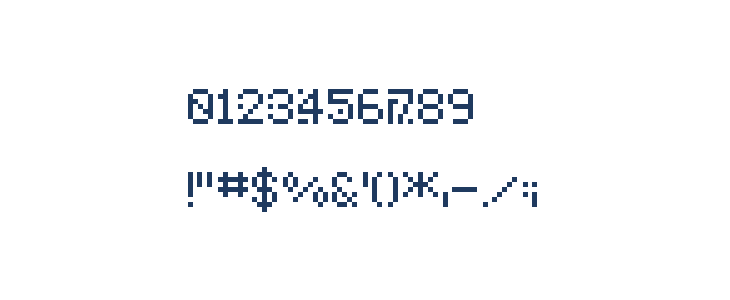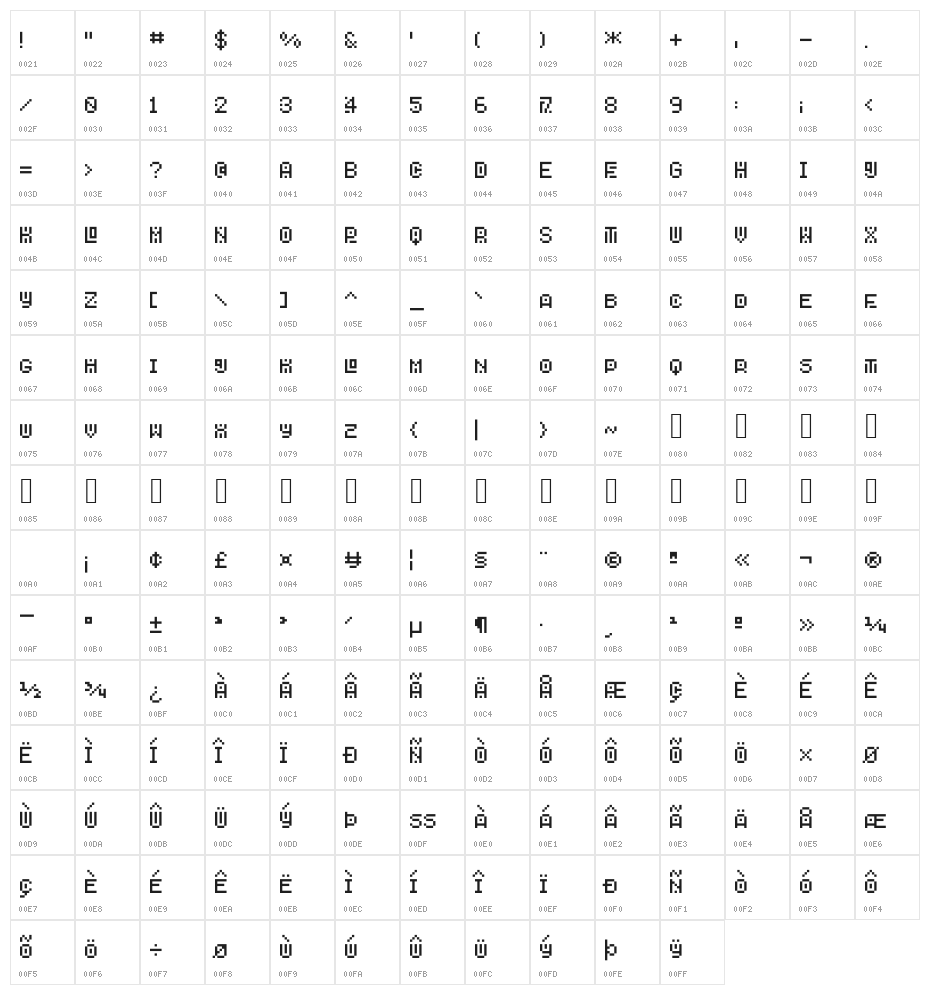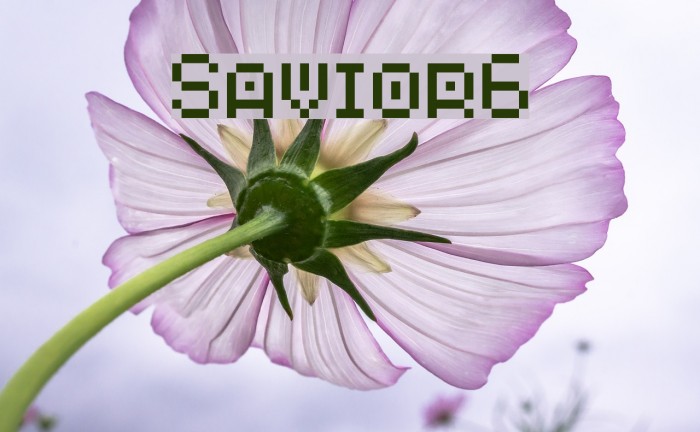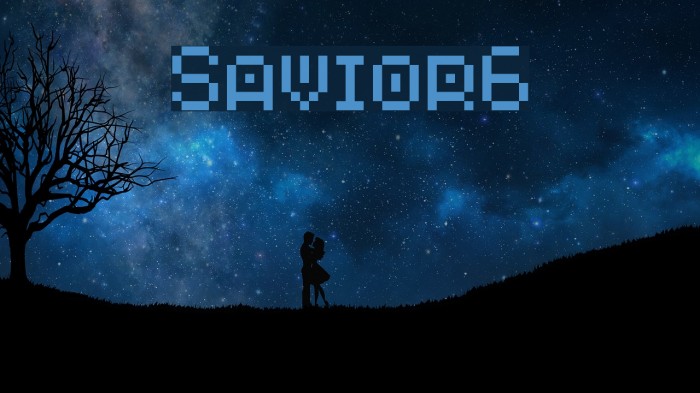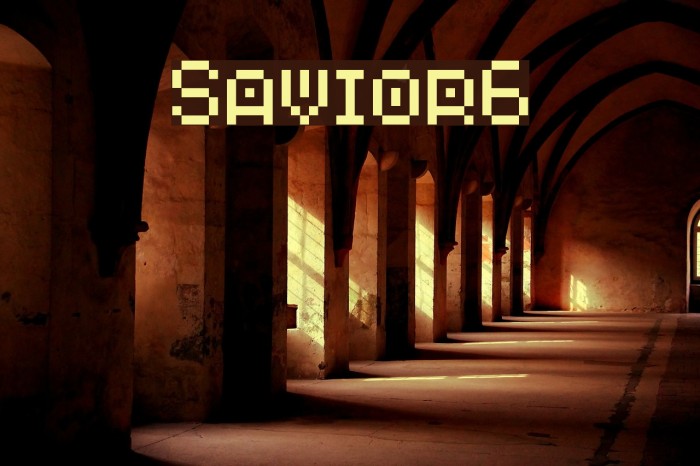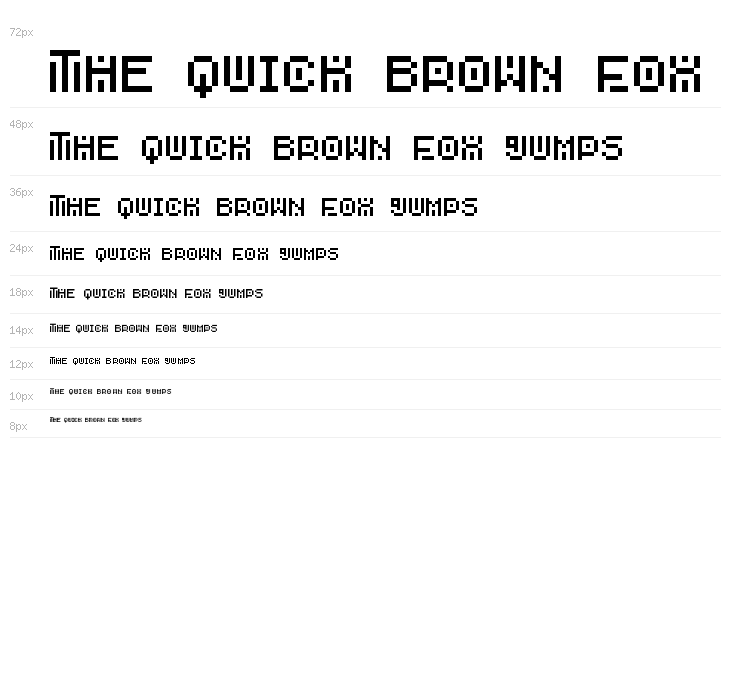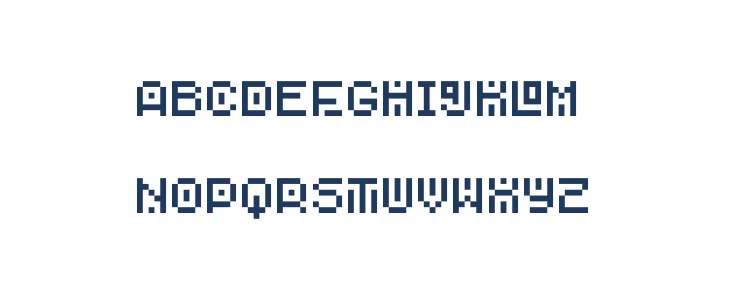
Savior6 Font
Savior6 Description
This font features a pixelated, blocky style reminiscent of early digital or video game typography. Each character is constructed with a uniform grid-like pattern, giving it a distinctly retro and digital appearance. The uppercase and lowercase letters maintain a consistent height and width, creating a cohesive and structured look. Numbers and special characters follow the same design principles, ensuring uniformity across all glyphs. The font's geometric and monospaced nature makes it ideal for projects that require a nostalgic or tech-inspired aesthetic.
| Overall Style | Retro, Digital |
| Use Case | Logos, Headlines, Digital displays |
| Proposed Projects | Ideal for video game graphics, retro-themed designs, digital art, and tech-related branding. |